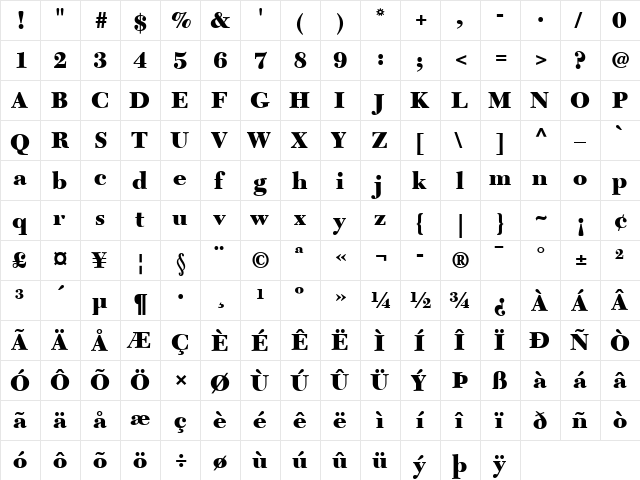
NewCaledonia LT SemiBold Bold
Design Context for NewCaledonia LT SemiBold Typeface
NewCaledonia LT SemiBold takes a measured approach to typography — its balanced proportions and neutral character make it a reliable workhorse for both digital and print work. Its bold stroke weight gives it real presence on the page.